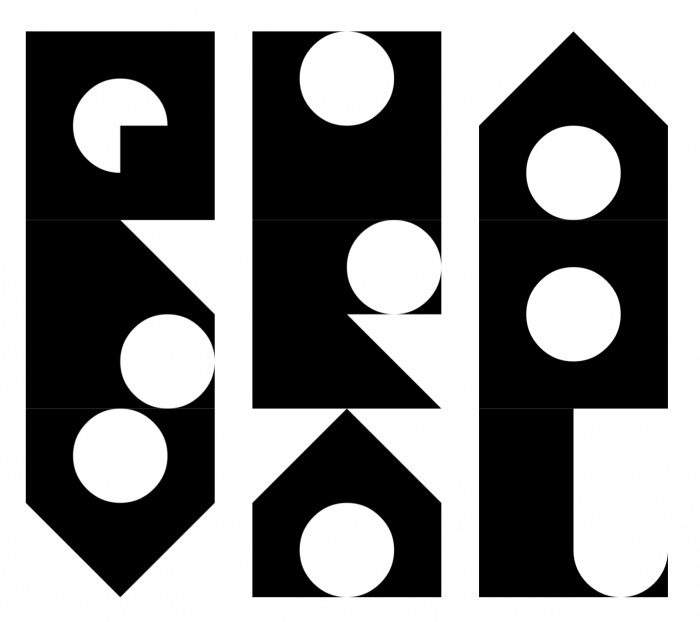
• Inspired by "quadroval alphabet" of xpome xpome on Behance: https://www.behance.net/gallery/394144/quadroval-alphabet
(I had to create some of the Cyrillic letter myself)